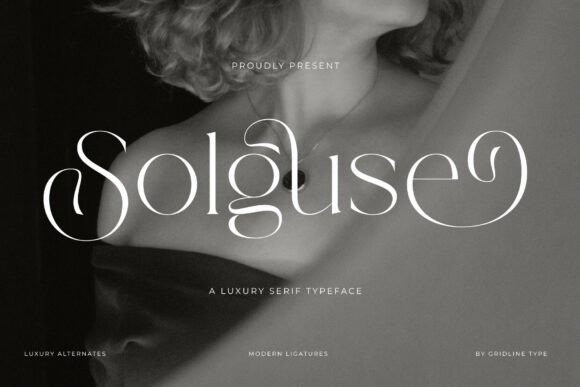
Solguse Font
Solguse Font a breathtaking luxury serif typeface. Perfectly striking a balance between classical Roman elegance and avant-garde fluidity, this magnificent display font turns editorial headers into works of pure fine art. Its dramatic architectural signature relies on mesmerizing, looping terminal swashes, interlocking crossbars, and stylized fluid tails that twist traditionally rigid stems into soft, breathing curves.
This premium typography collection comes loaded with modern ligatures and luxury alternates, giving designers complete fluid freedom across high-end minimalist grids. Solguse cuts sharply with immaculate crisp clarity when placed over grainy black-and-white portraiture, romantic editorial photography, or clean layout designs. It serves as an extraordinary strategic choice for haute couture fashion branding, upscale wedding stationery suites, boutique cosmetics and premium perfume packaging, fine jewelry identity design, and prominent luxury lifestyle magazine headlines.